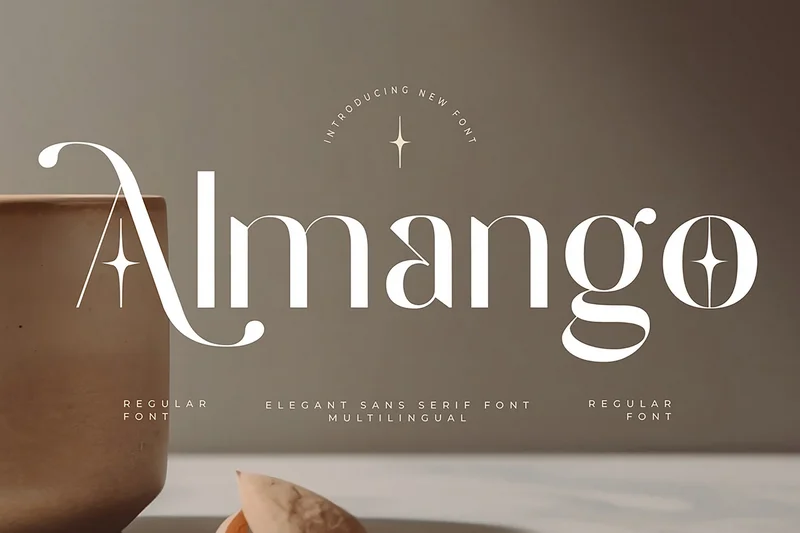
Almango Elegant Sans Serif Fonts
Almango sans-serif Font is a unique, modern geometric font with a unique, elegant, modern, and geometric style. It is a sans-serif font perfect for branding projects, logos, social media posts, product packaging, labels, etc.
Character Set
Uppercase and Lowercase
Numeral and Punctuation